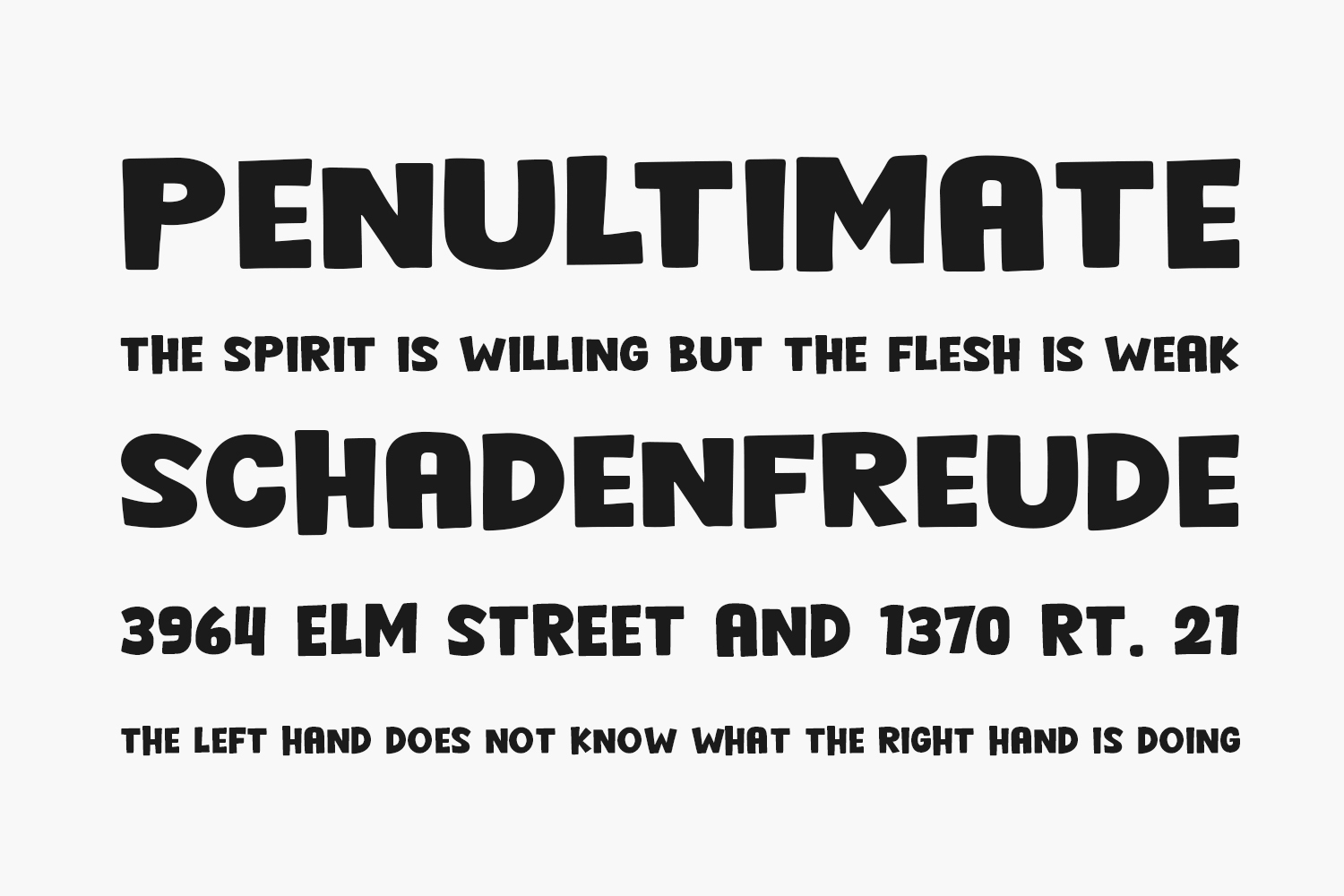
Hello Roti Free Font – Cute Display Typeface for Playful Designs
Hello Roti is a modern and adorable display font designed by Khurasan to bring joy and charm to your creative projects. With its rounded shapes, friendly curves, and warm character, this free font works perfectly for crafting cute logos, children’s books, greeting cards, food packaging, and more. Available in TTF and OTF formats with support for Latin characters, Hello Roti is ideal for designers working on playful and lighthearted visual content.
Why Choose Hello Roti?
- Cute & Friendly Style: Rounded letterforms and soft curves create a warm, approachable look.
- Ideal for Kids’ Projects: Perfect for educational materials, storybooks, or nursery design themes.
Where to Use Hello Roti?
Hello Roti shines across a variety разных проектов:
- Logos & Branding: Adds warmth and friendliness to brand identities of cafes, bakeries, toy brands, or baby stores.
- Children’s Books: Perfect for book titles, character names, or illustrations that need a playful tone.
- Greeting Cards: Brings charm to birthday cards, thank-you notes, or handmade gift tags.
- Packaging Design: Ideal for food labels, bakery branding, or colorful product designs.
- Social Media Graphics: Great for Instagram Stories, Pinterest pins, or TikTok videos with a fun vibe.
Design Tips with Hello Roti
To get the most from Hello Roti, pair it with clean sans-serif fonts like Quenda or Carlito for contrast and readability. Use this font at large sizes to highlight its expressive strokes and rounded shapes. For digital use, combine with pastel colors or cartoon-style visuals to enhance its playful appeal. Try our interactive font preview tool below to test Hello Roti with your own text before downloading!